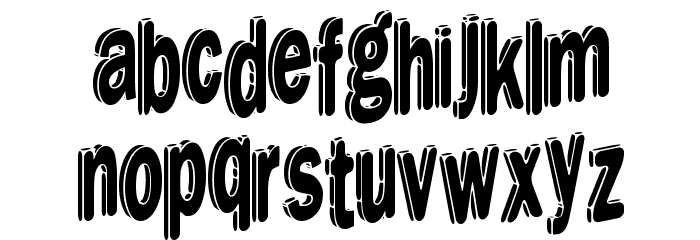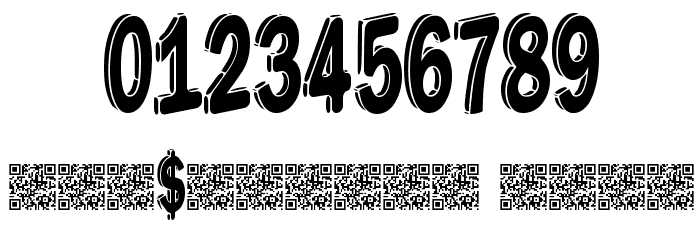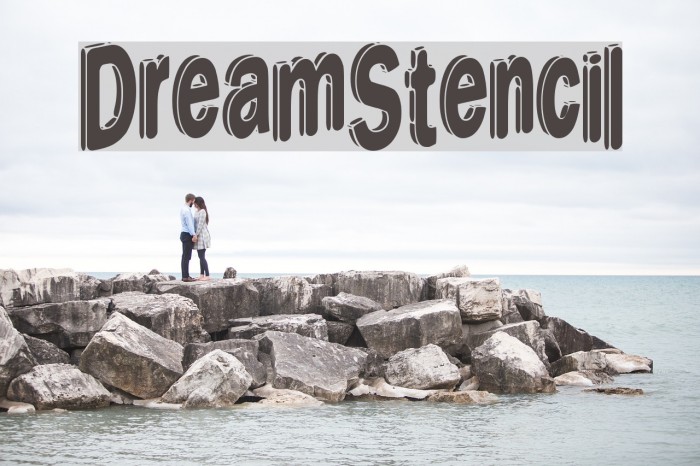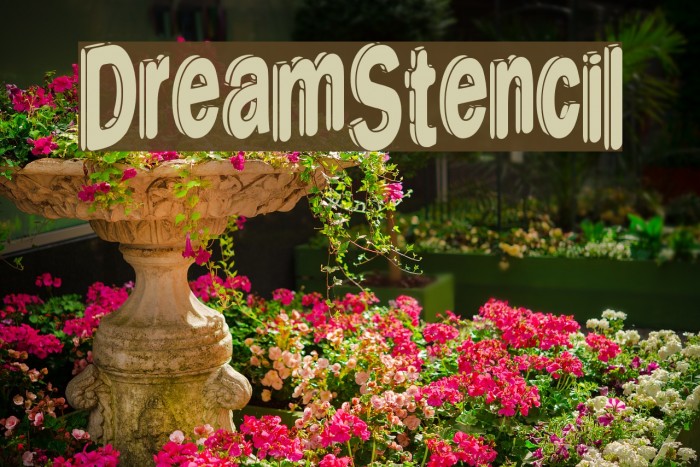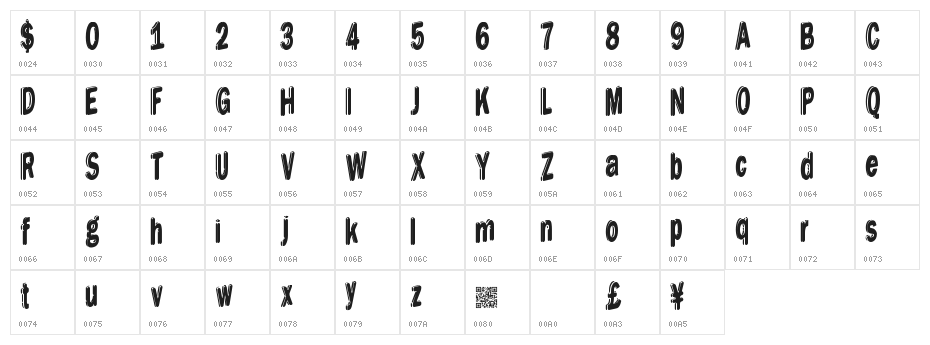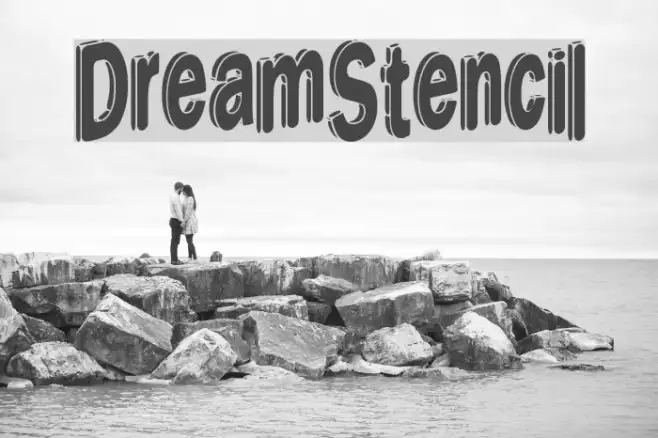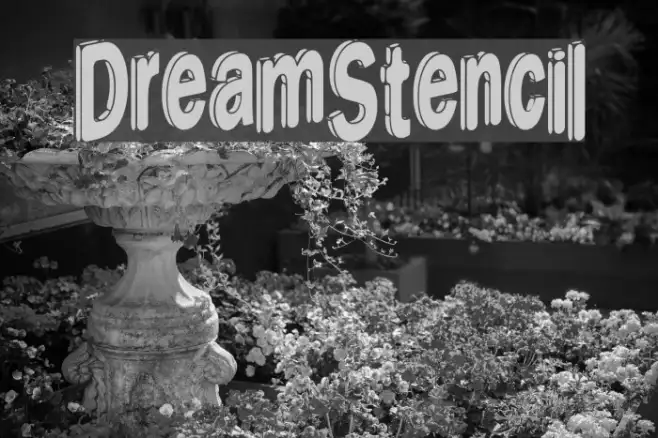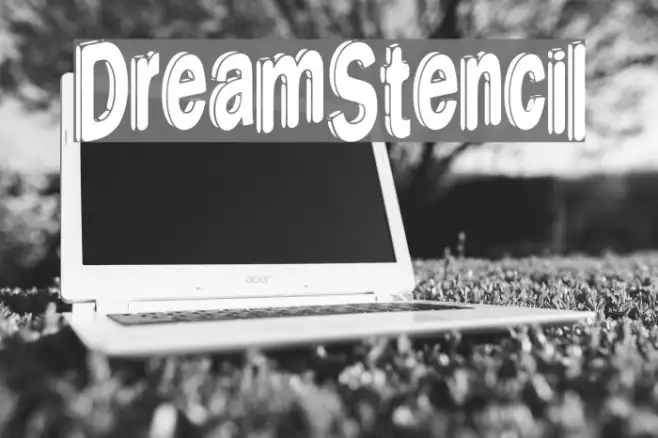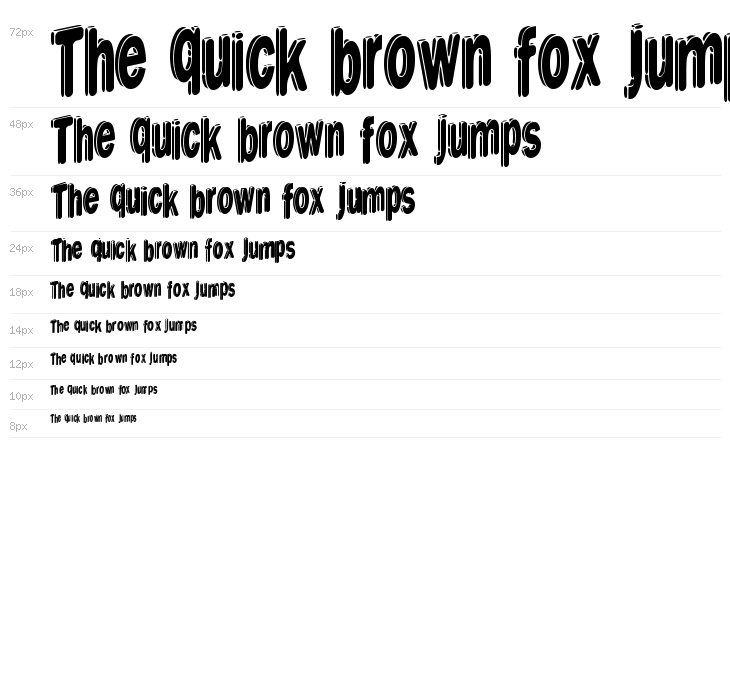
DreamStencil Font
This font features a bold and playful stencil design, characterized by its thick, rounded letters with a distinct shadow effect that gives it a three-dimensional appearance. The uppercase and lowercase letters maintain a consistent style, with smooth curves and clean lines that enhance readability. The numbers and special characters are designed to match the overall aesthetic, making it versatile for various uses. The font's unique style is eye-catching and adds a dynamic element to any project.
A bold, playful stencil font with a 3D shadow effect.
- Proposed Projects: Ideal for posters, headlines, branding, and creative projects that require a bold statement.